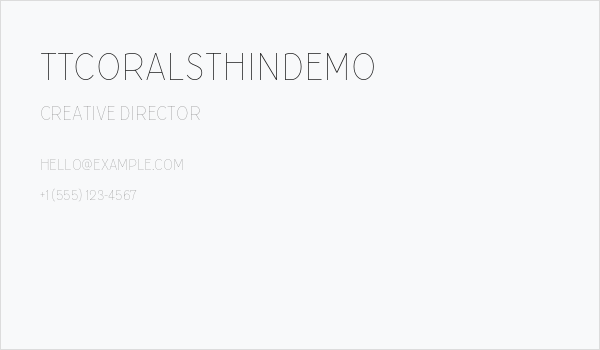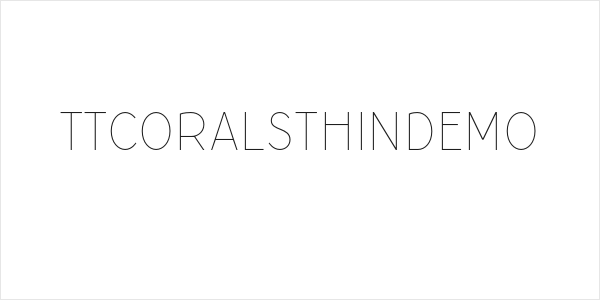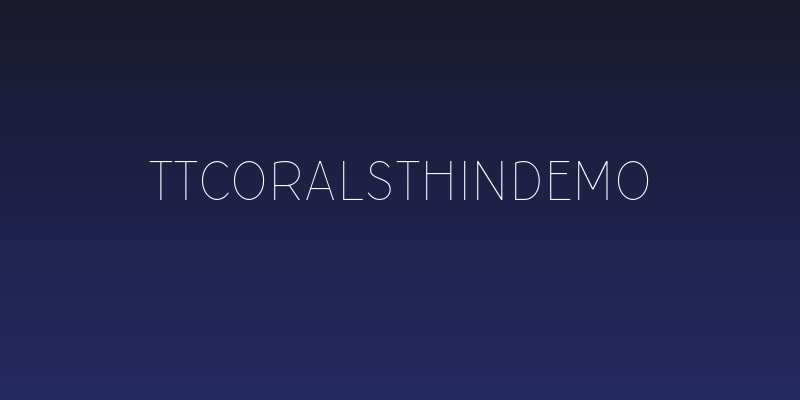
TTCoralsThinDEMO Font
TTCoralsThinDEMO Description
This font features a clean and minimalist design with thin, uniform strokes that convey a sense of modern elegance. The characters are well-proportioned, with a geometric influence that is evident in the precise curves and straight lines. The uppercase and lowercase letters maintain a consistent style, providing a harmonious appearance. The numerals are clear and easy to read, complementing the overall aesthetic. Special characters are included, offering versatility for various design needs. The font's simplicity and clarity make it suitable for a wide range of applications.
| Proposed Projects | Ideal for branding, editorial design, web design, and minimalist projects. |